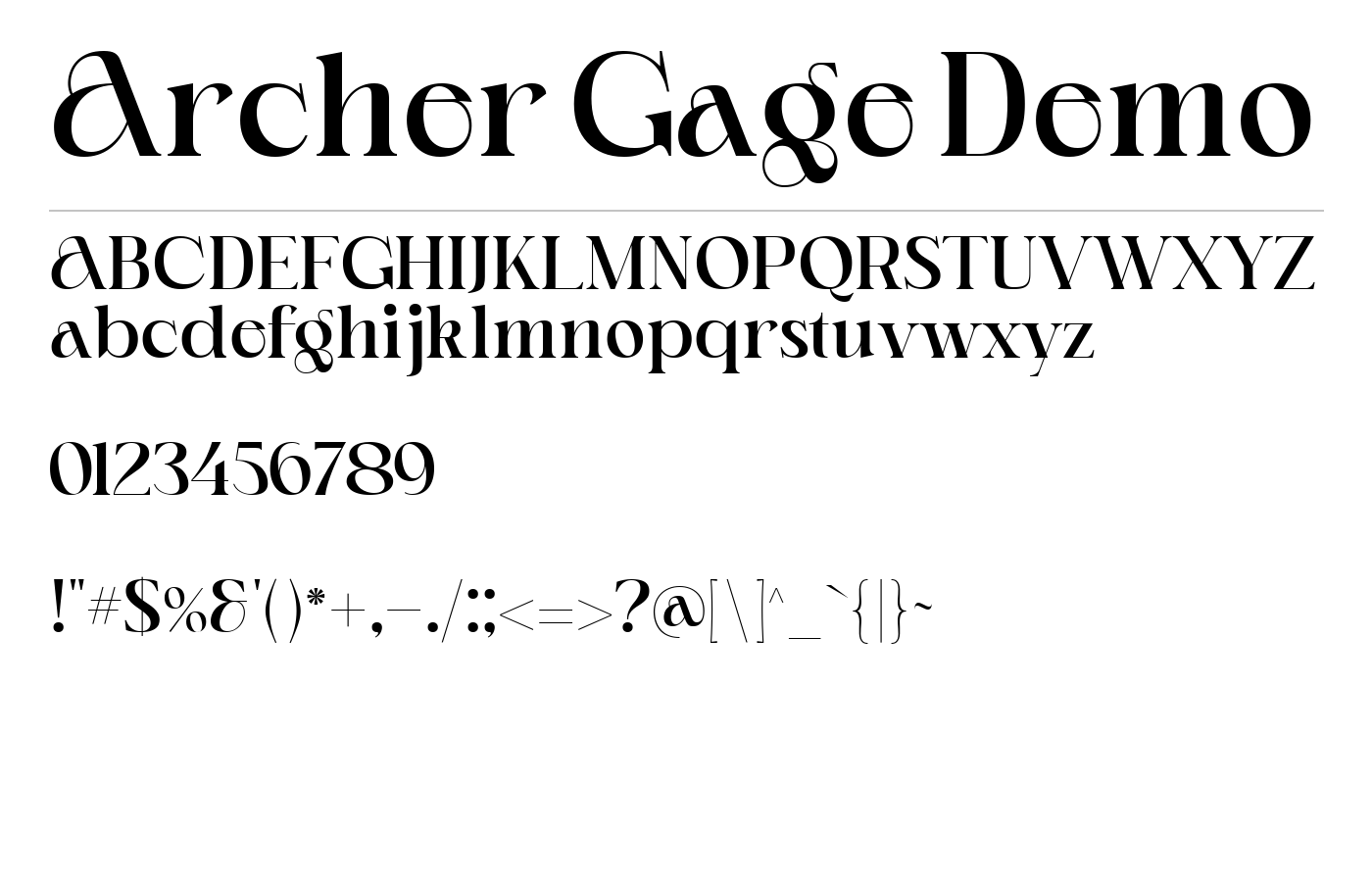
Archer Gage Demo is a distinctive serif font with a high contrast between thick and thin strokes, featuring sharp, elegant serifs and a modern twist in its unique letterforms like the looped "g" and stylized "Q." Its refined, slightly condensed structure and sophisticated details make it perfect for luxury branding, editorial headlines, and creative design projects where a sense of elegance and personality is desired. This font works best in contexts that call for a blend of classic refinement and contemporary flair, enhancing both readability and visual interest.
Archer Gage Demo Font
About Archer Gage Demo Font